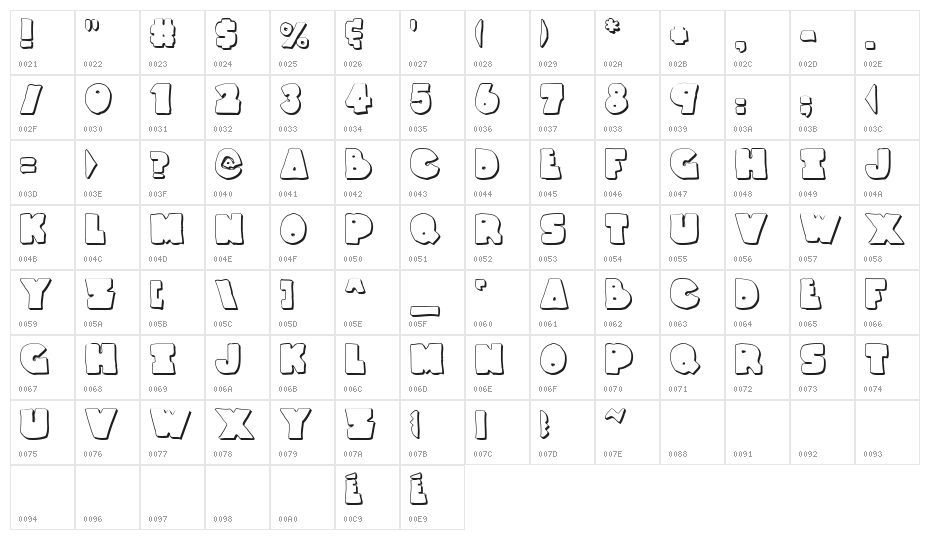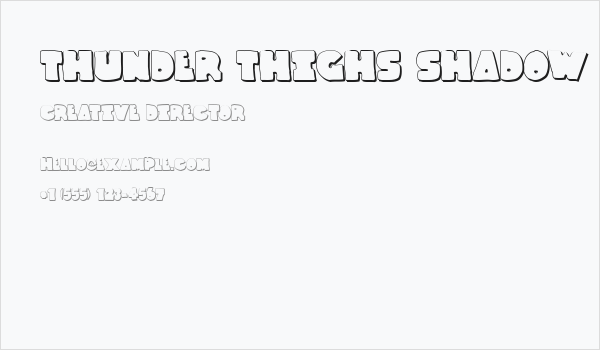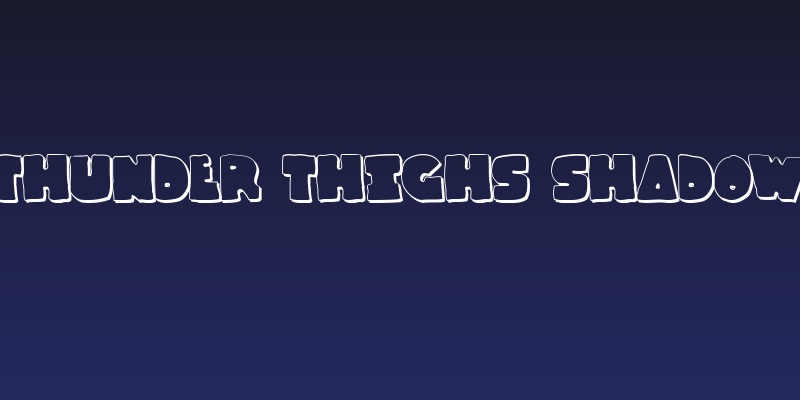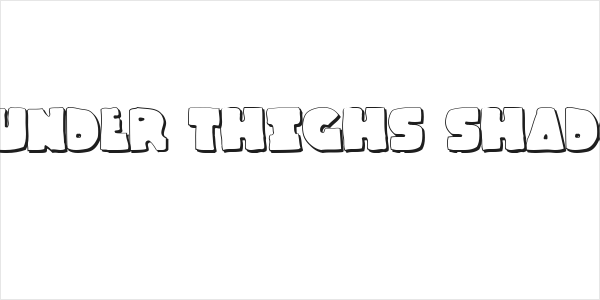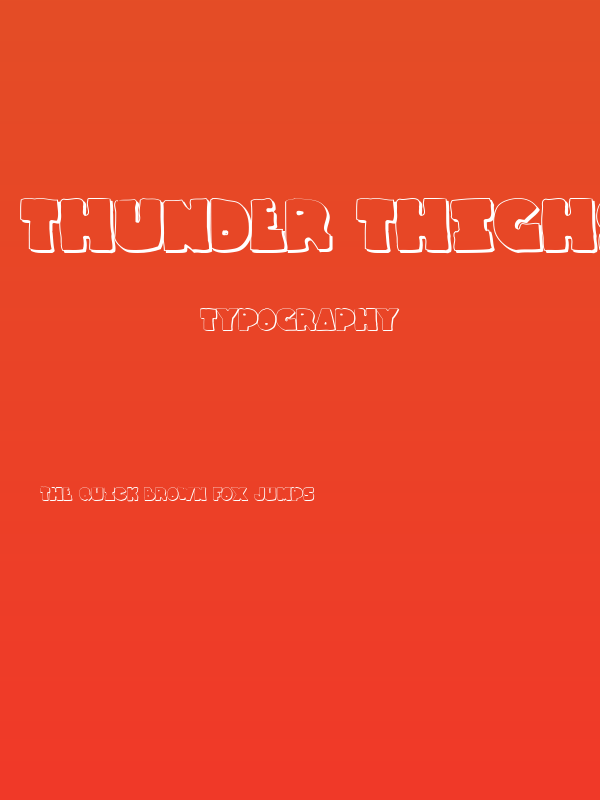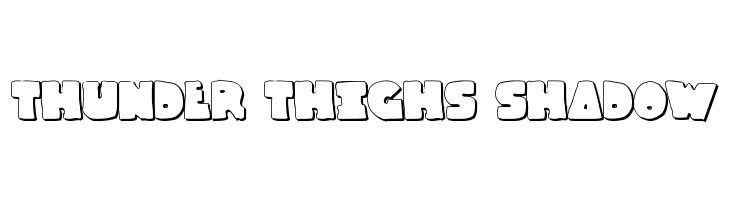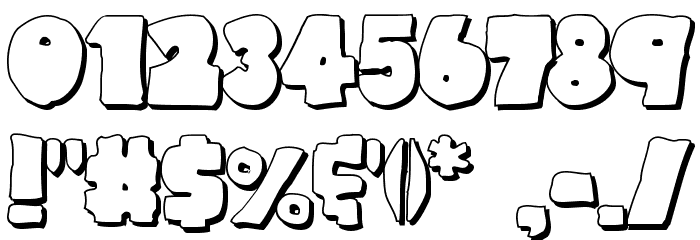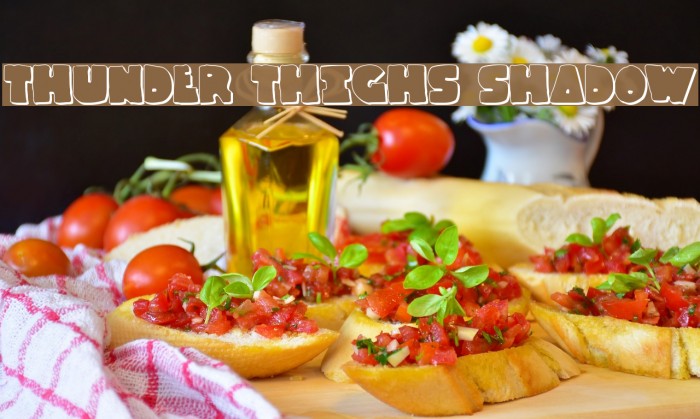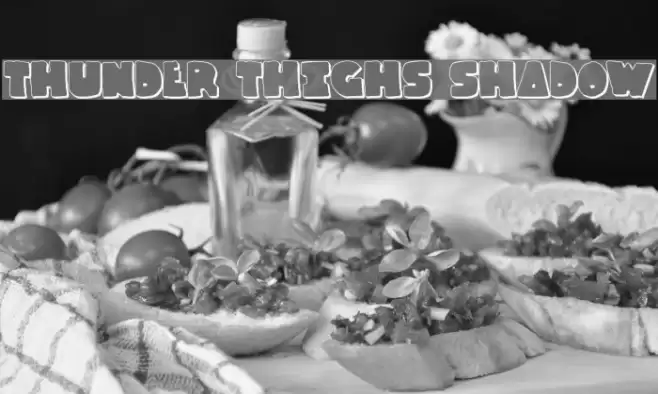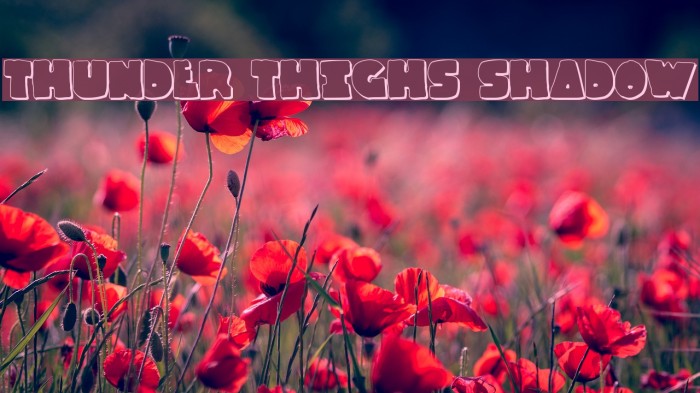
Thunder Thighs Shadow Font
Thunder Thighs Shadow Description
This font features a bold, playful style with a shadow effect that gives it a three-dimensional appearance. The characters are rounded and chunky, creating a sense of fun and whimsy. Each letter is outlined with a thick black line, enhancing the shadow effect and adding depth. The font is highly decorative, making it ideal for eye-catching designs. The uppercase and lowercase letters maintain a consistent style, while the numbers and special characters complement the overall aesthetic. This font is perfect for projects that require a bold statement and a touch of humor.
| Overall Style | Playful, Fun, Decorative |
| Use Case | Headlines, Posters, Branding |
| Proposed Projects | Ideal for children's book covers, playful posters, comic strips, and fun branding projects. |